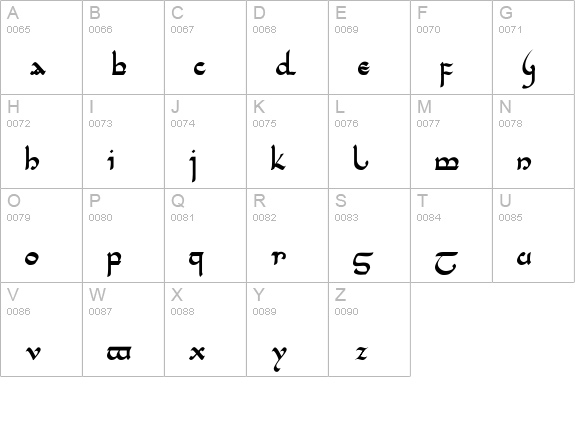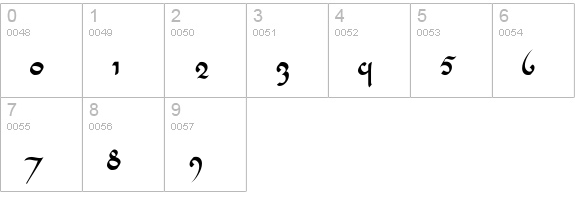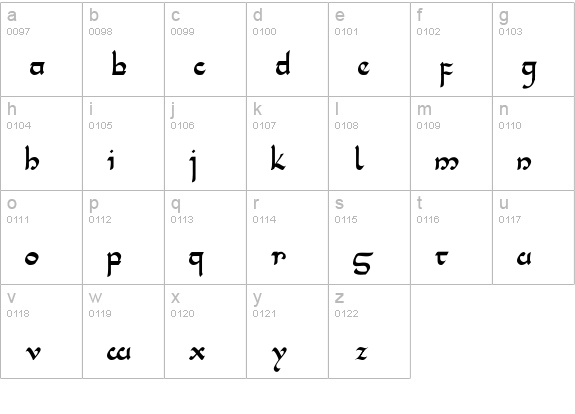
Tencele Latinwa Font Details
Introducing Tencele Latinwa, a captivating and versatile font that combines elegance and modernity with a touch of sophistication. This remarkable typeface effortlessly captures attention with its unique and distinctive letterforms, making it perfect for a wide range of creative projects. Tencele Latinwa stands out with its refined and balanced strokes, exuding a sense of professionalism and creativity. Its smooth curves and sharp angles create a harmonious blend, ensuring legibility without compromising its stylish appeal. Whether used for headlines, logos, or body text, this font adds a touch of class and sophistication to any design. Designed with meticulous attention to detail, Tencele Latinwa offers an extensive character set, including uppercase and lowercase letters, numbers, symbols, and punctuation marks. This versatility allows you to express your creativity and bring your ideas to life effortlessly. What makes Tencele Latinwa even more remarkable is that it is available free of charge. Yes, you heard that right! This exceptional font can be freely downloaded from FontsMarket.com, making it accessible to everyone. So, whether you're a professional designer, a student, or an enthusiast looking to enhance your creative projects, Tencele Latinwa is the perfect choice for you. Download Tencele Latinwa today and let your imagination run wild as you explore the endless possibilities that this remarkable font offers. Unleash your creativity and make a lasting impression with Tencele Latinwa - the font that combines elegance, versatility, and the freedom to create stunning designs.